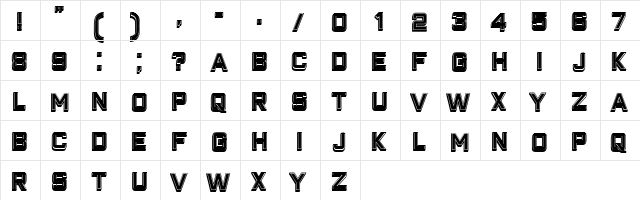
Closeness Outline Filled Regular
Design Context for Closeness Outline Filled Typeface
Closeness Outline Filled is built around its visual character rather than neutral utility — its distinctive forms are designed to make an impression at display sizes.
Font Pairing: Pair with a clean neutral sans-serif for body copy to let Closeness Outline Filled's character lead without overwhelming the composition.
Pro Tip: Use Closeness Outline Filled exclusively at display sizes — it was designed to be seen, not read at length. Let a neutral companion handle body copy.